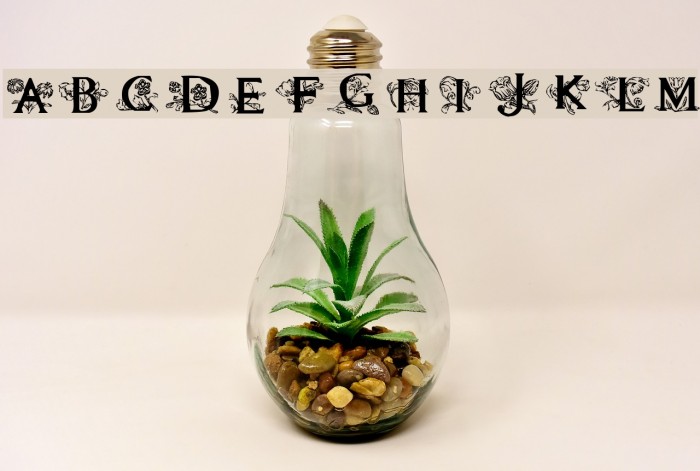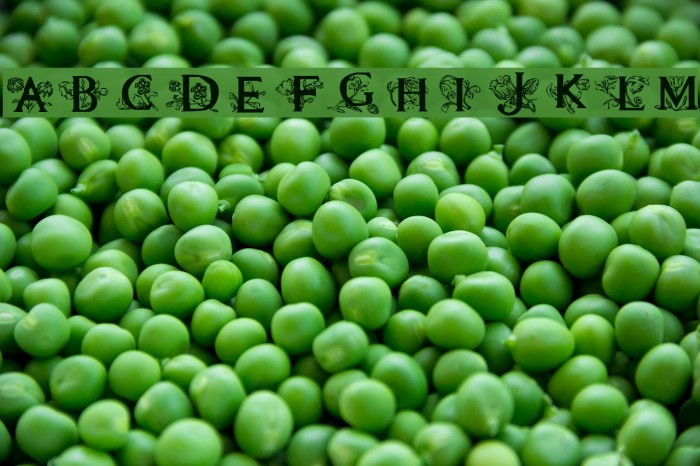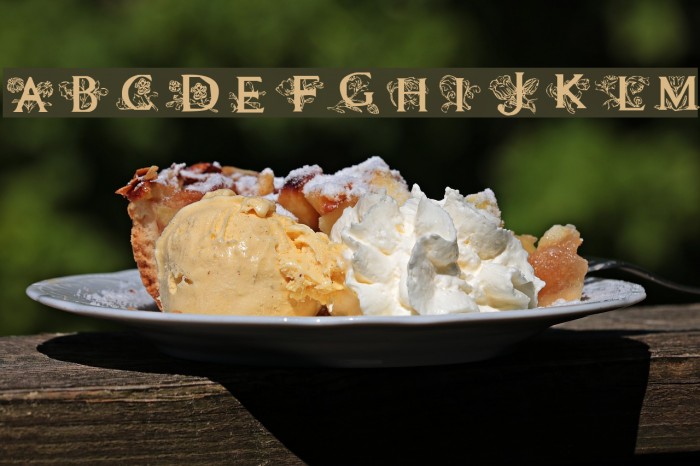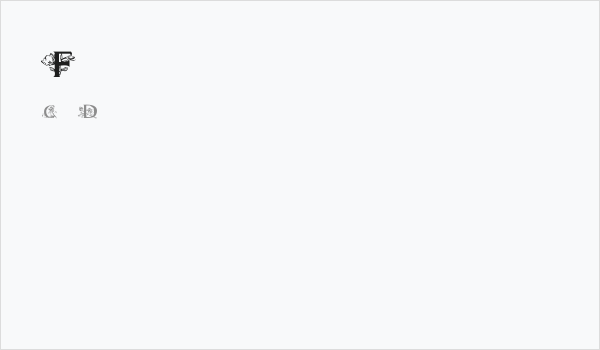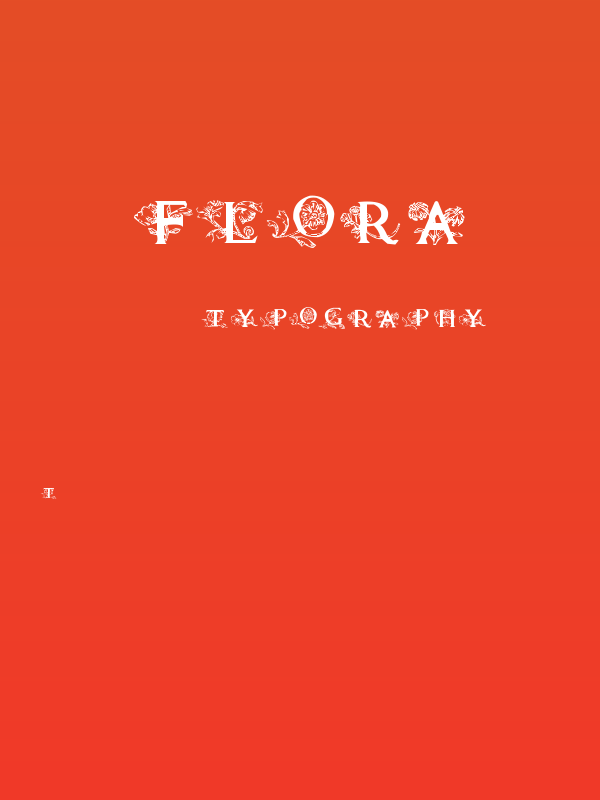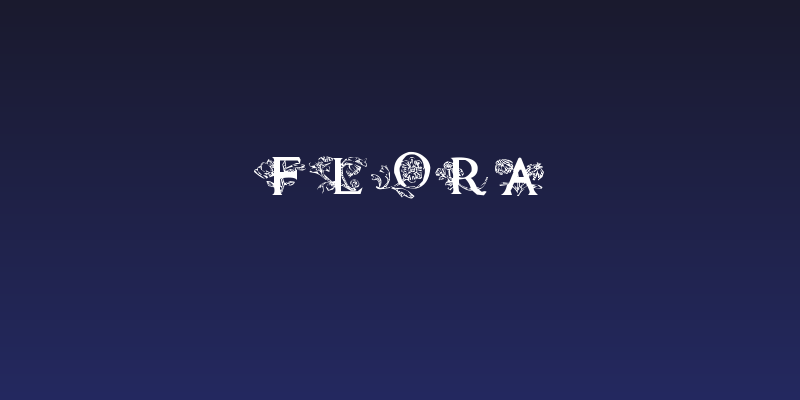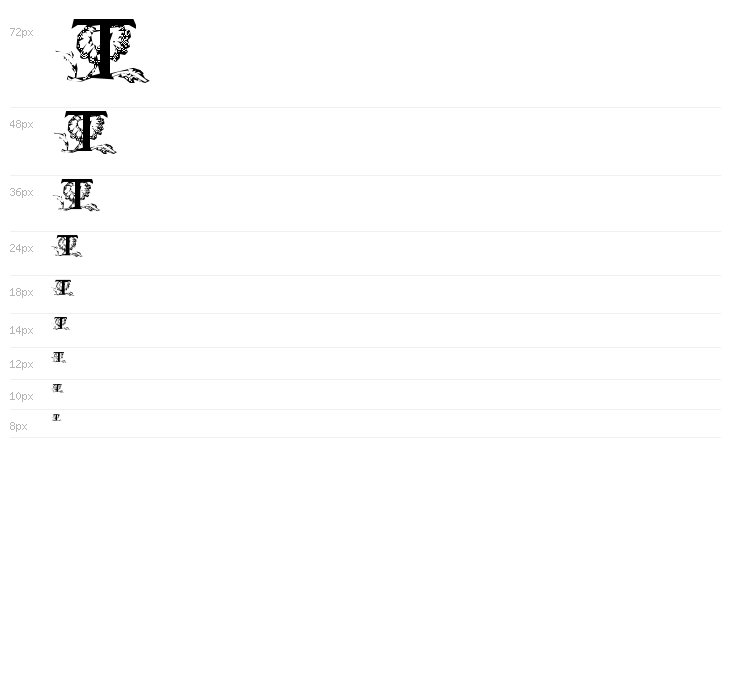
Flora1 Font
Flora1 Description
This decorative font features intricate floral and vine embellishments integrated into each letterform, creating an ornate and elegant appearance. The uppercase letters are adorned with detailed botanical elements that give the font a unique and artistic flair. The design is reminiscent of vintage botanical illustrations, making it ideal for projects that require a touch of nature-inspired elegance. The overall style is highly decorative, with each character presenting a harmonious blend of typography and floral art. The font's intricate details make it suitable for use in large sizes where the embellishments can be fully appreciated.
| Overall Style | Vintage, Decorative |
| Proposed Projects | Ideal for wedding invitations, greeting cards, book covers, and decorative posters. |